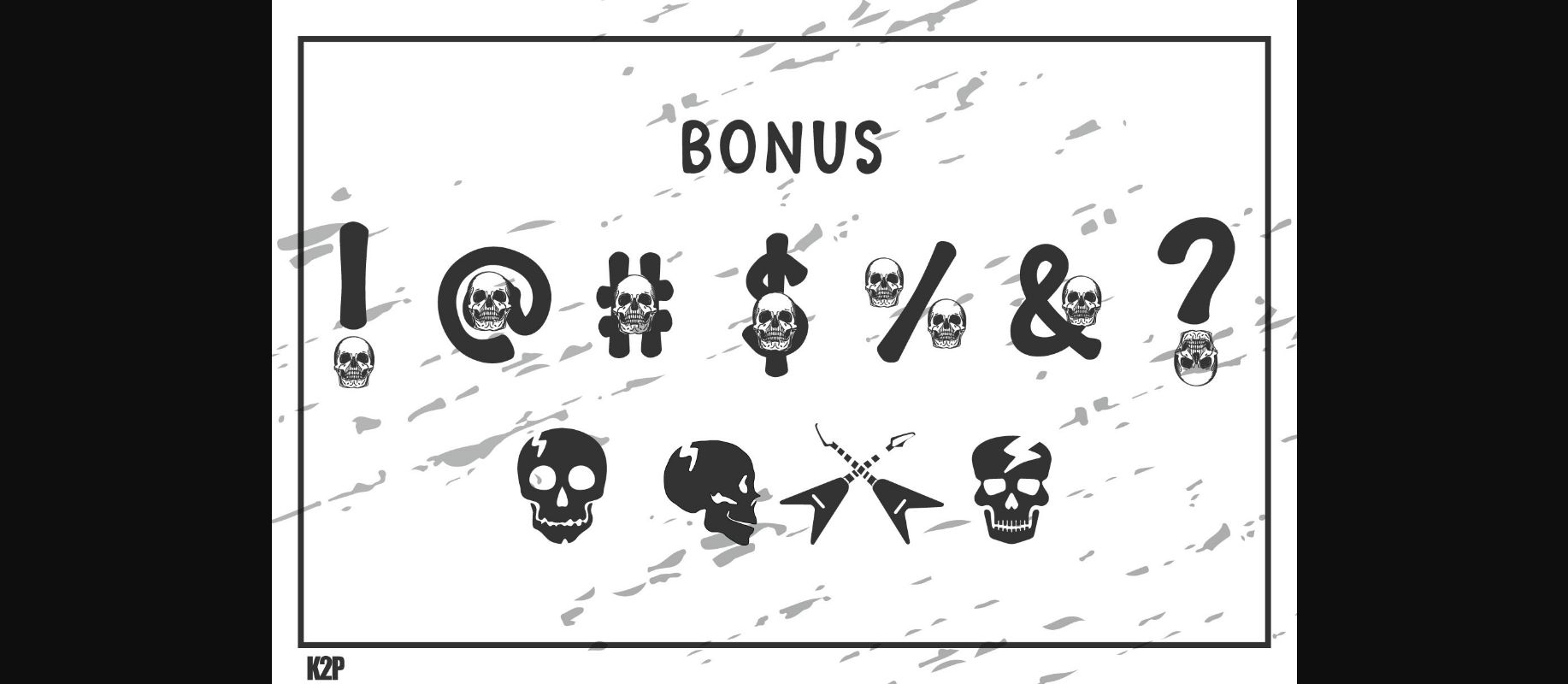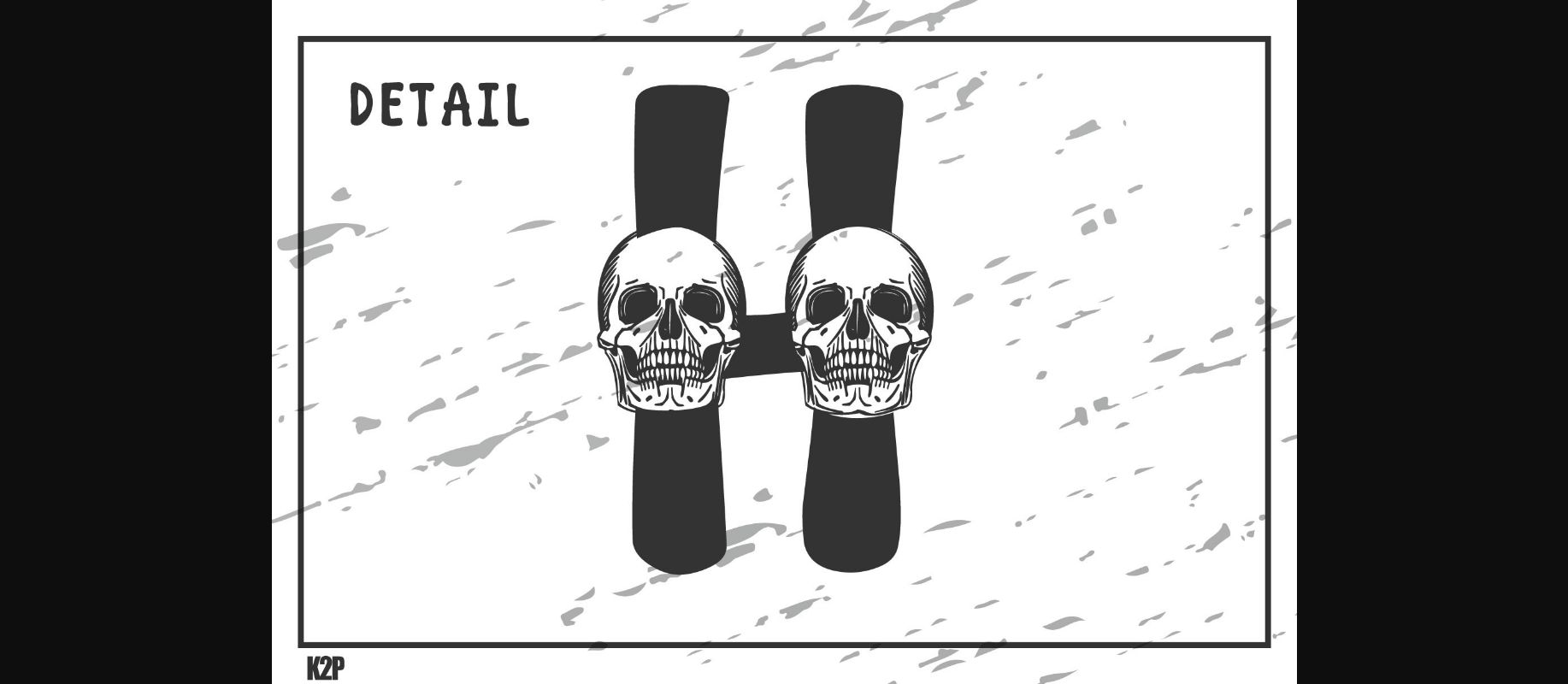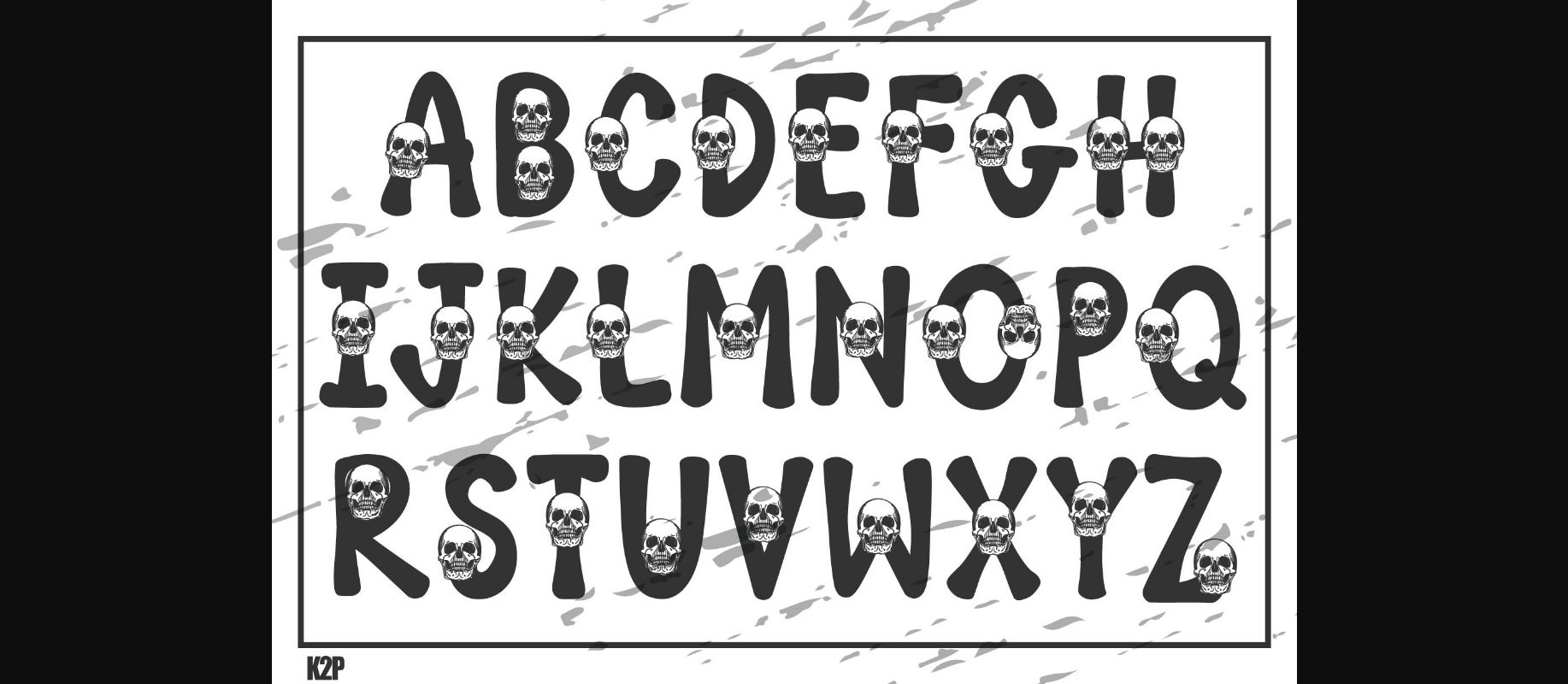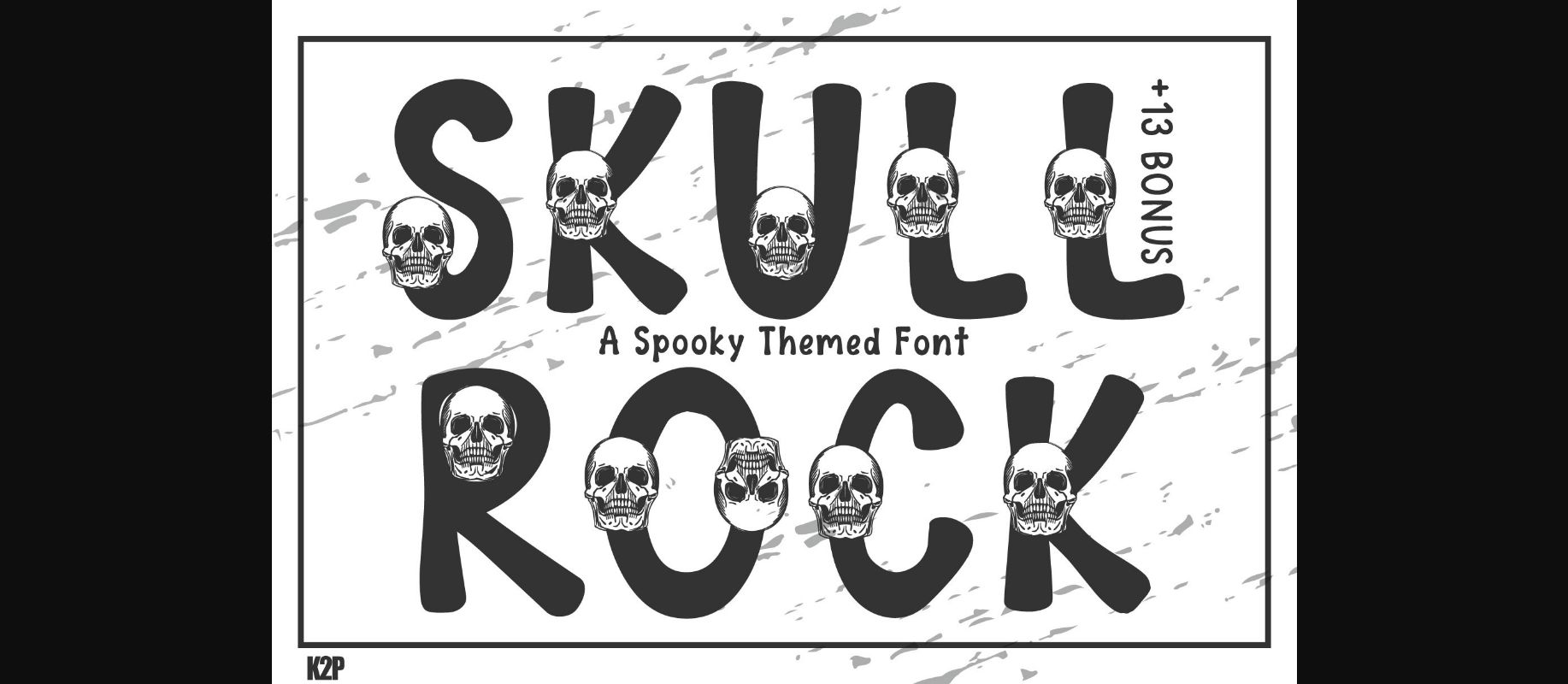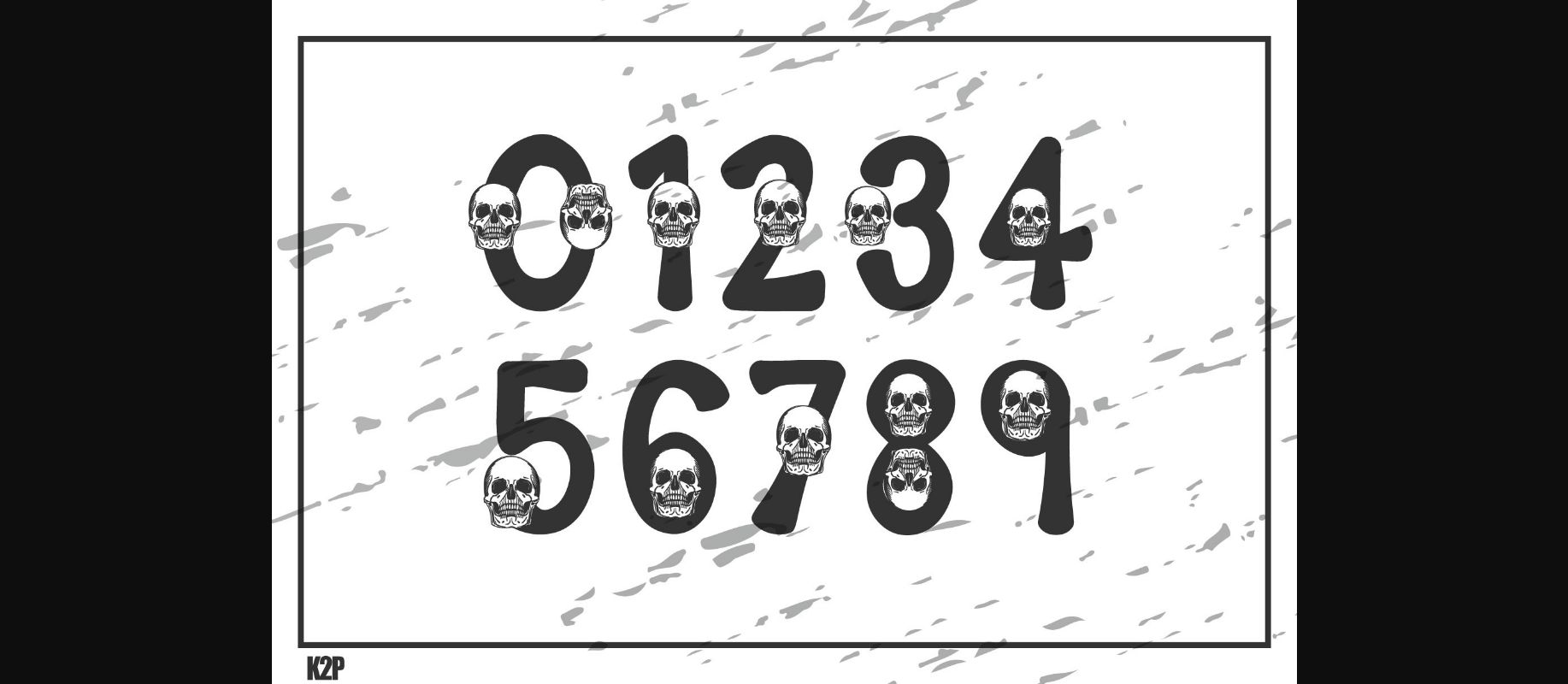
Skull Rock Font
About Skull Rock Font
Skull Rock is a spooky and dramatic decorative font. It is perfectly suitable for any Halloween-related project or crafty idea! This font is PUA encoded which means you can access all glyphs and swashes with ease!